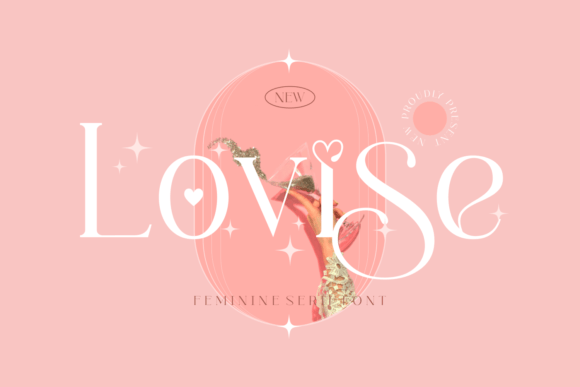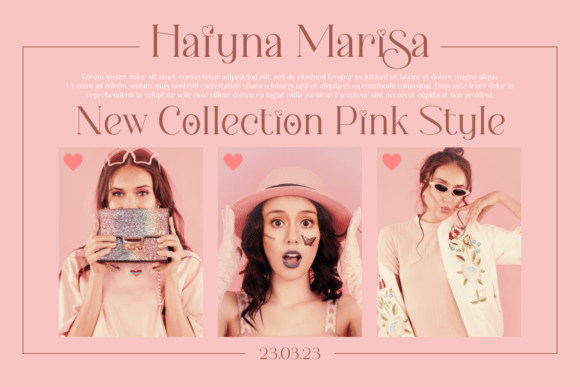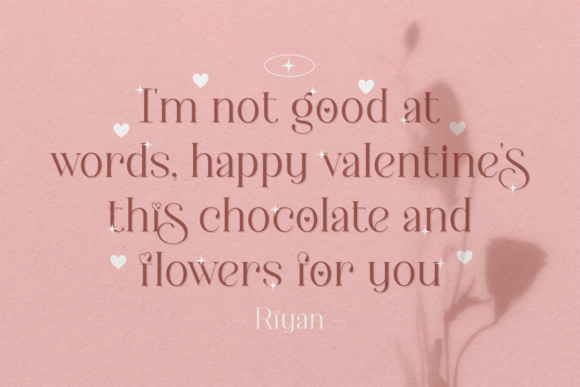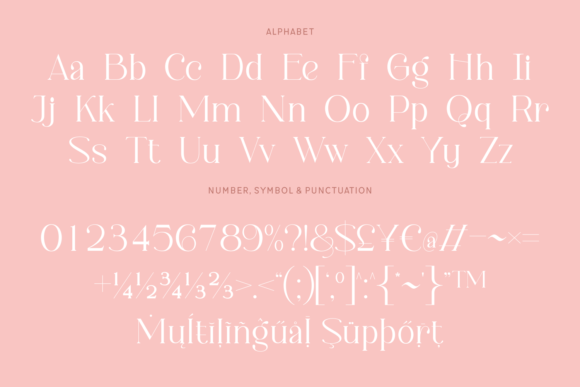
Lovise Font
Lovise is a feminine and stylish serif font. Fall in love with its incredibly versatile style and use it to create gorgeous wedding invitations, beautiful stationary art, eye-catching social media posts, and much more!